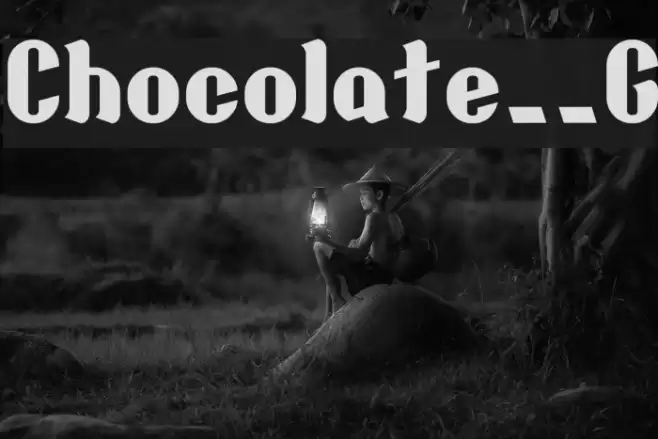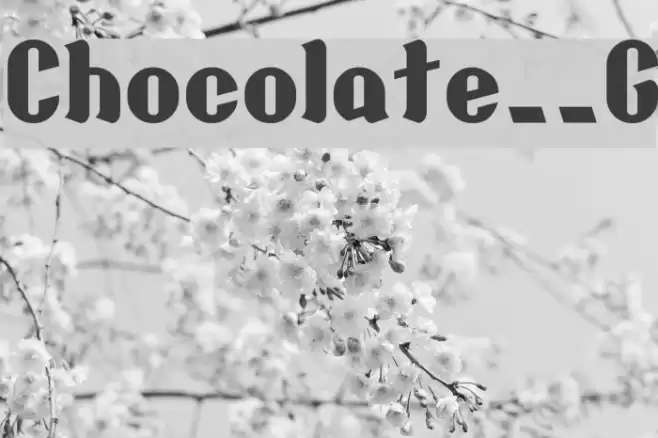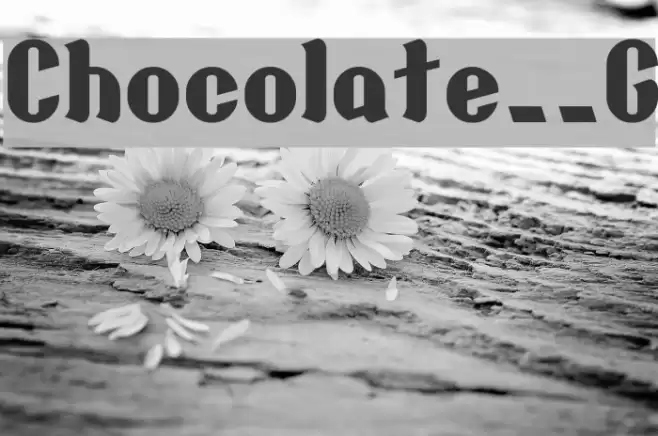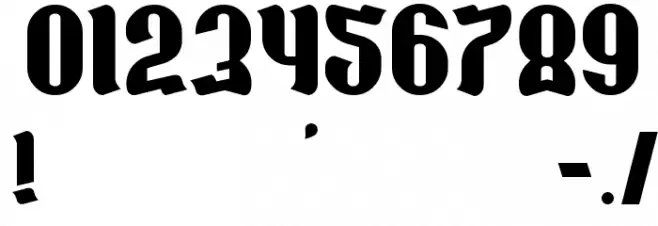
Chocolate__G Font
Chocolate__G Description
This font features bold, thick strokes with a distinct, playful style. The uppercase letters are robust with a slight curvature, giving them a whimsical yet strong appearance. Lowercase letters maintain the boldness, with unique characteristics like exaggerated serifs and playful tails. Numbers are equally bold, ensuring visibility and impact. Special characters are designed to match the overall style, maintaining consistency across all glyphs. The font's design is reminiscent of vintage signage, with a modern twist that makes it suitable for contemporary use.
A bold, playful font with vintage-inspired, thick strokes from Drippy fonts.
- Proposed Projects: Ideal for branding, posters, and packaging designs that require a bold and playful aesthetic.
- Overall Style: Vintage